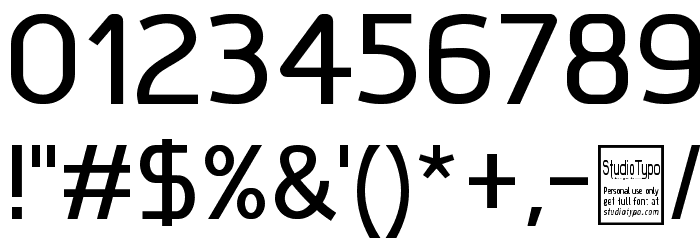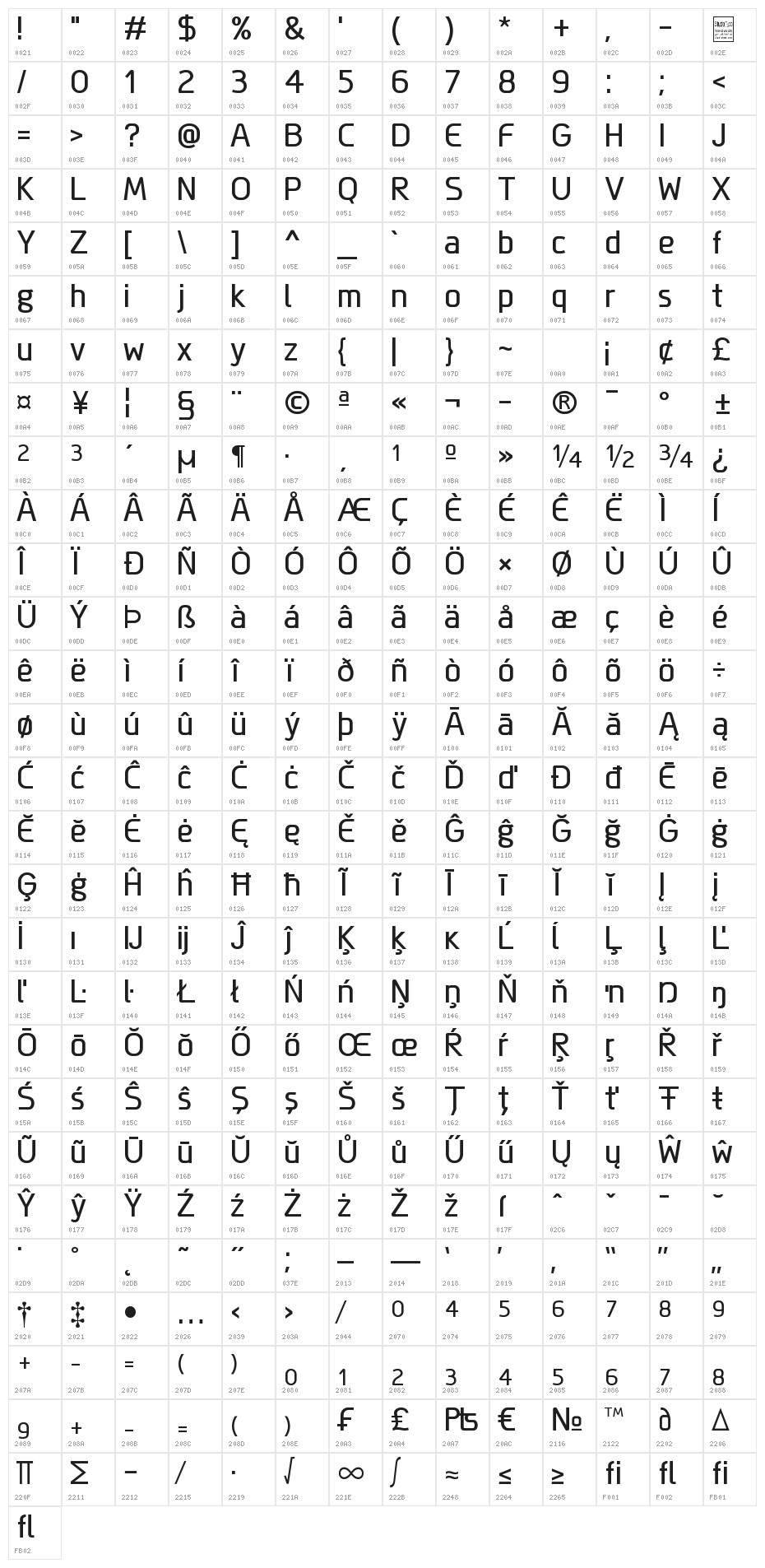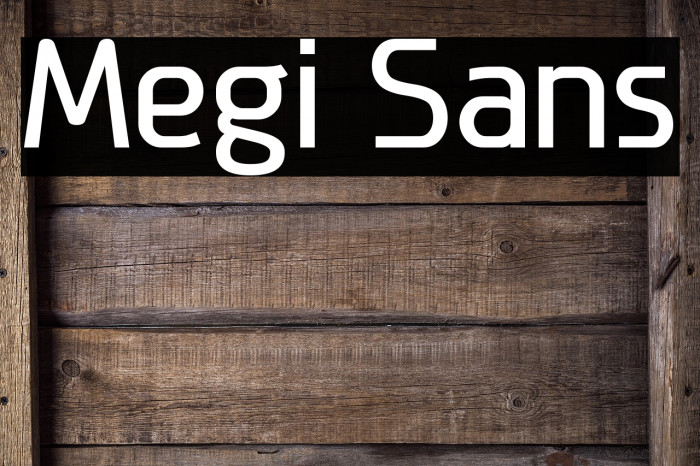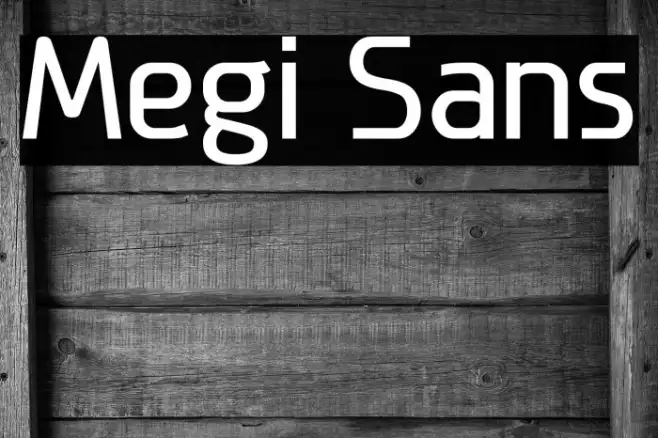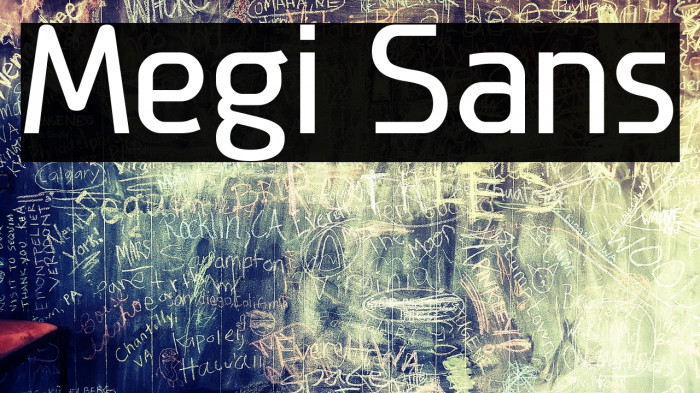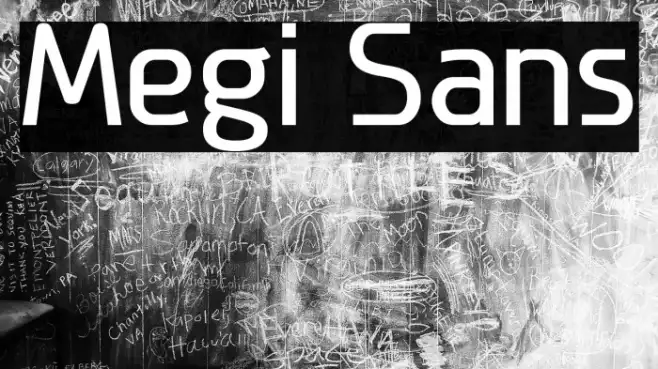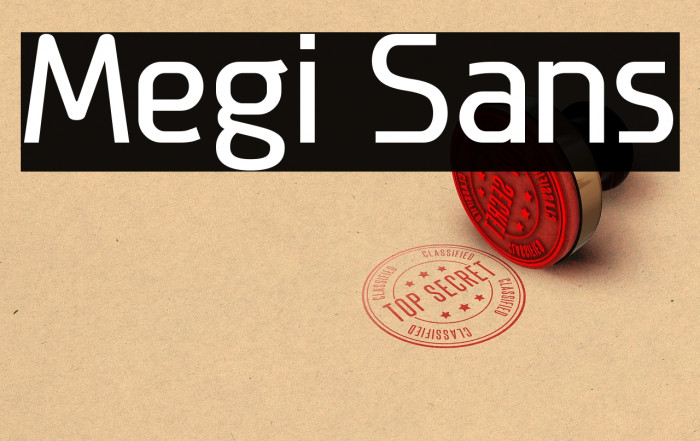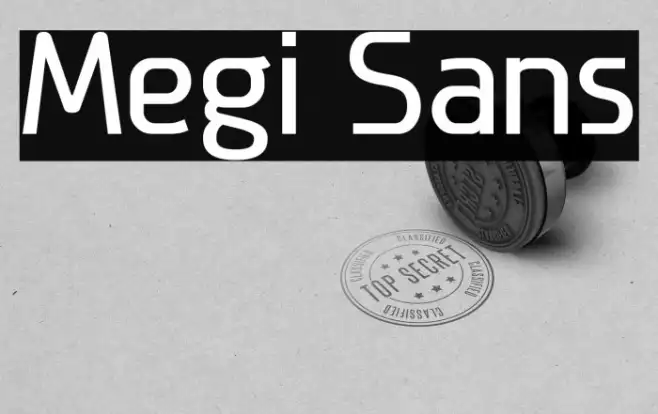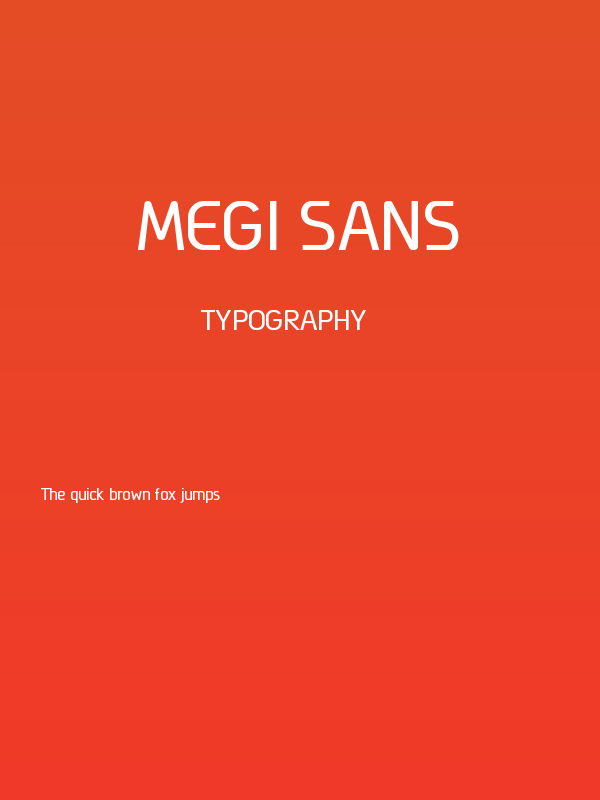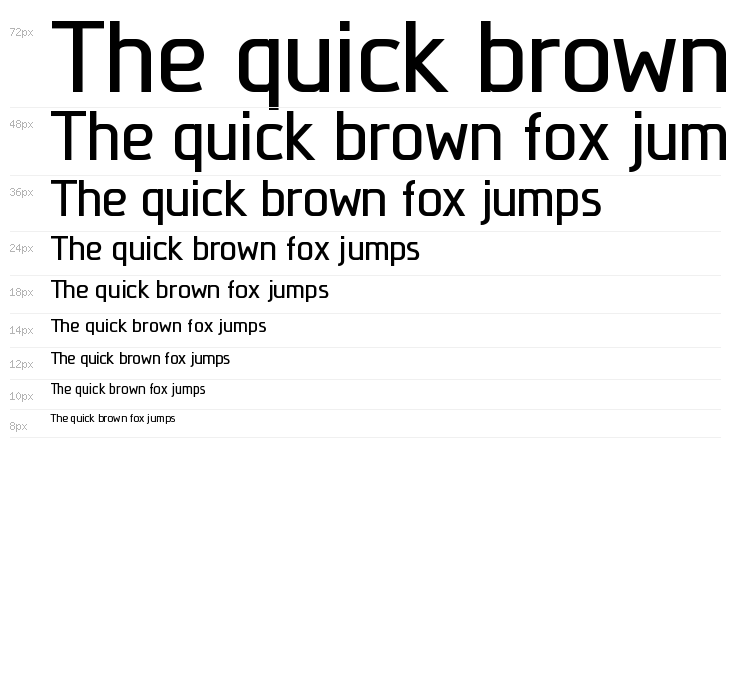
This font features a clean and modern sans-serif design with a geometric structure. The characters are well-balanced, offering a uniform appearance that enhances readability. The uppercase letters are bold and assertive, while the lowercase letters maintain a consistent flow with slightly rounded edges, adding a touch of softness to the overall design. The numerals are clear and distinct, making them suitable for various applications. Special characters are included, providing versatility for different contexts. The font's simplicity and clarity make it ideal for both digital and print media.
Use CaseHeadlines, Body text, Logos
Proposed ProjectsIdeal for branding, web design, advertising, and editorial projects where clarity and modernity are essential.